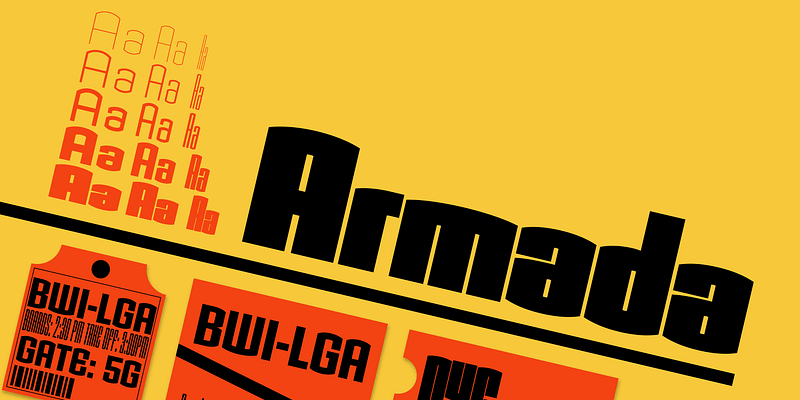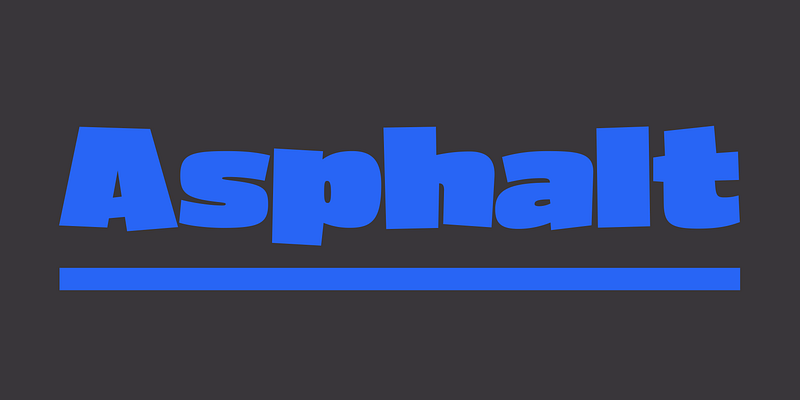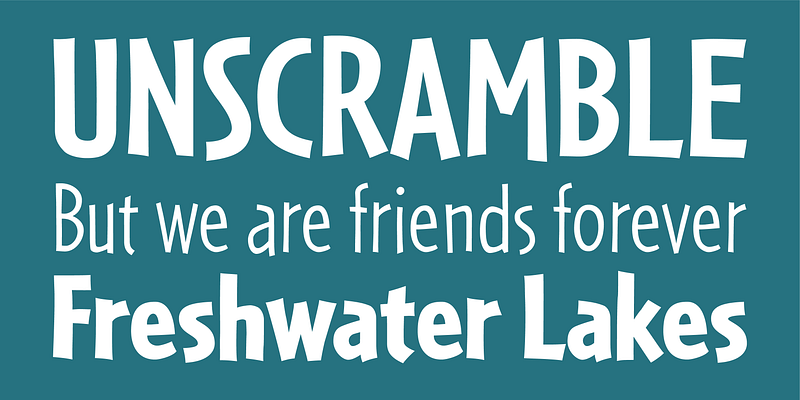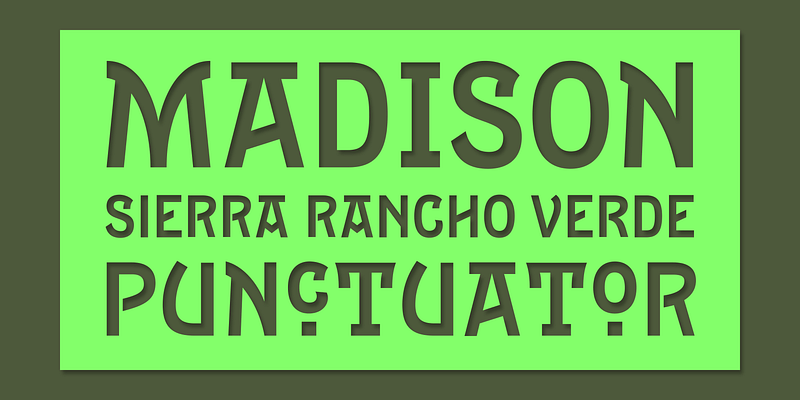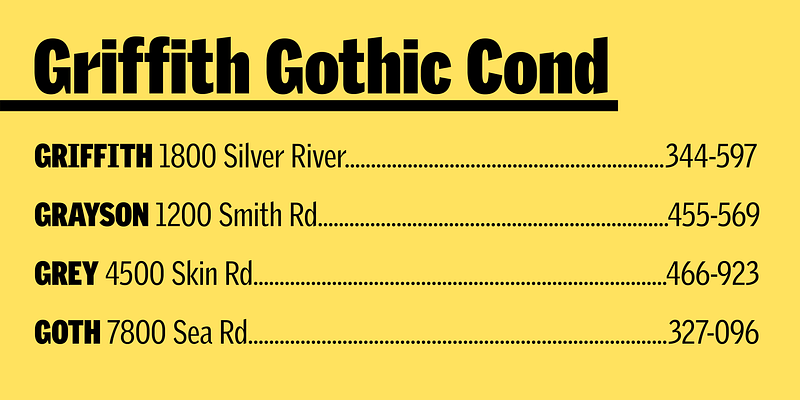
Armada
Tobias Frere-Jones began Armada in 1987. An experiment in algorithmic design, Armada follows the verticals and flat arches so often to be found in the architectural geometry of cast iron and brickwork in 19th-century American cityscapes. All of the weights and widths of Armada were drawn by Frere-Jones, offering a full display series of remarkable richness, all variations in a truly architectural theme & discipline.
Asphalt
Who hasn’t admired the energy of Antique Olive Nord? All other ultrabolds seem sluggish in comparison. Nord exudes Roger Excoffon’s animation and Gallic impatience with the rules. Tobias Frere-Jones cross-bred the weight, proportion, and rhythms of Nord with the casual grace of his own Cafeteria, gaining informality and a dancing vitality on the page. In his words, Asphalt swings with “a lively, if faintly inebriated gyration”.
Cafeteria
The irregularities normally found in handwriting can also enliven sans serif letterforms. In Cafeteria, Tobias Frere-Jones took special care to balance activity with legibility, drawing a freeform sans serif that is condensed but in no way stiff.
Citadel
In the condensed styles of most geometric slab serifs, weak ovals replace the powerful circular forms. In Citadel, Tobias Frere-Jones follows a stronger alternative, substituting straight strokes for the curved sides of round characters. Flat horizontal curves play against the variety of serifs, in counterpoint to the repeating rhythm of verticals. In the Inline style, the stripe adds to that rhythm, creating a typeface that offers a powerful and stylish geometry.
Epitaph
Drawn around 1880 at the Boston Type Foundry, Epitaph combined slow curves with a boxy sure-footed profile. Its noisy theatrics caught Tobias Frere-Jones’ eye, who created this digital revival. Starting with a handful of alternates from the original, he also built a complete second alphabet, offered alongside the default.
Garage Gothic
Grand Central
In 1998, Tobias Frere-Jones designed Grand Central for 212 Associates from late-’20s capitals hand-painted on the walls of Grand Central Station. The design is a distinguished Beaux Arts descendant of the great French Oldstyle originated by Louis Perrin in Lyons in 1846, known across Europe as Elzevir and in the United States as De Vinne. Lettering from different areas was combined for Light; Bold was designed for more distant signs.
Griffith Gothic
Designed by Chauncey Griffith in 1937 for use in telephone books, Bell Gothic was a proven workhorse for text sizes. Griffith Gothic revives and expands the design for use in headlines as well as text, adding multiple weights, plus an italic and a condensed range. Its dramatic thinning of joints, originally meant to anticipate ink spread, is continued as an expressive characteristic.
Griffith Gothic Condensed
Designed by Chauncey Griffith in 1937 for use in telephone books, Bell Gothic was a proven workhorse for text sizes. Griffith Gothic revives and expands the design for use in headlines as well as text, adding multiple weights, plus an italic and a condensed range. Its dramatic thinning of joints, originally meant to anticipate ink spread, is continued as an expressive characteristic.
Hightower
Hightower is a soft and inky take on the “Venetian” genre of text faces, which began with Nicholas Jenson’s roman of 1470. Hightower’s wide proportions and deep color were calibrated for small text sizes. Its organic forms and details also work well in headlines, adding complexity and subtlety.
Interstate
Efficient and gruff, Interstate has become a favorite for branding, packaging, publications, and more. The family is a reinterpretation of Highway Gothic, which has been the official typeface for American highway signage for decades. Its design is ultimately based on signage alphabets developed in the late 1940s by Dr. Theodore Forbes, assisted by J.E. Penton and E.E. Radek.
Reiner Script
Loose and angular, this typeface was originally designed by Imre Reiner for the Amsterdam Typefoundry in 1951. Attracted by its free-form structure and unique texture, Tobias Frere-Jones revived the original design from handset proofs in 1993 and designed a new boldface to accompany it. Following Reiner’s personal style of calligraphy, over twenty ligatures were added to each weight for flexibility and variety in headlines.